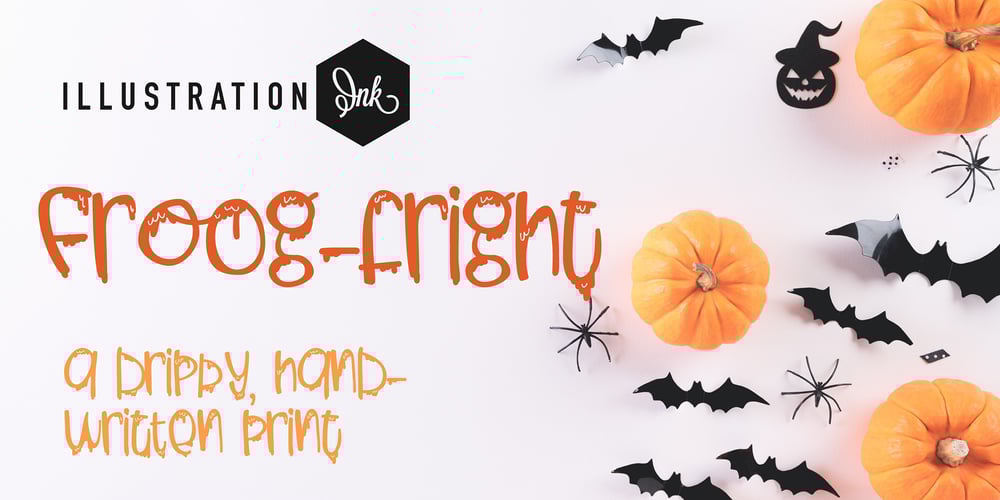
PN Froogfright Font Family was designed by Illustration Ink and published by Illustration Ink. PN Froogfright contains 1 styles and family package options. This hand-written, whimsical font features a cute hand-written print with no descenders and added ooze dripping throughout.